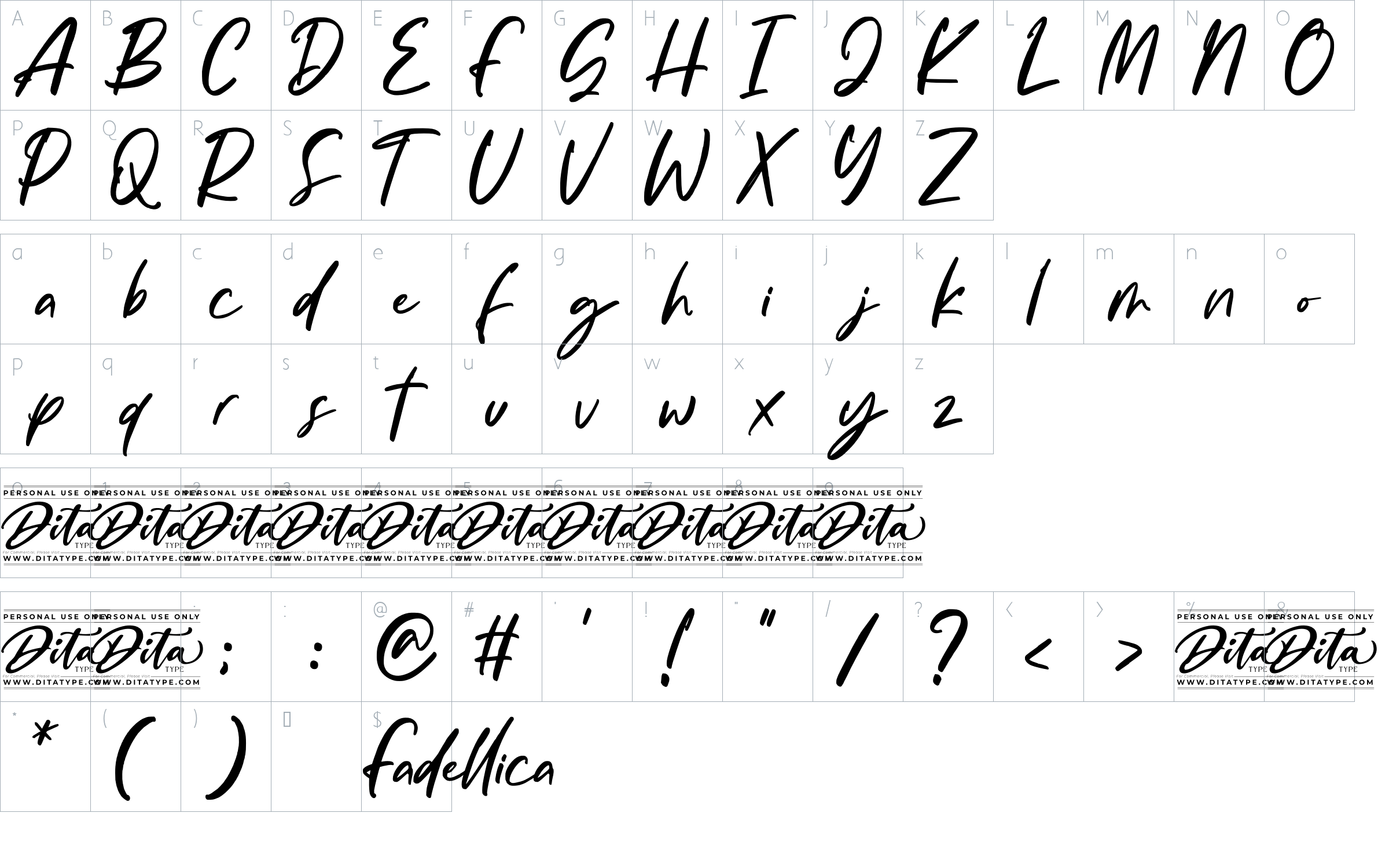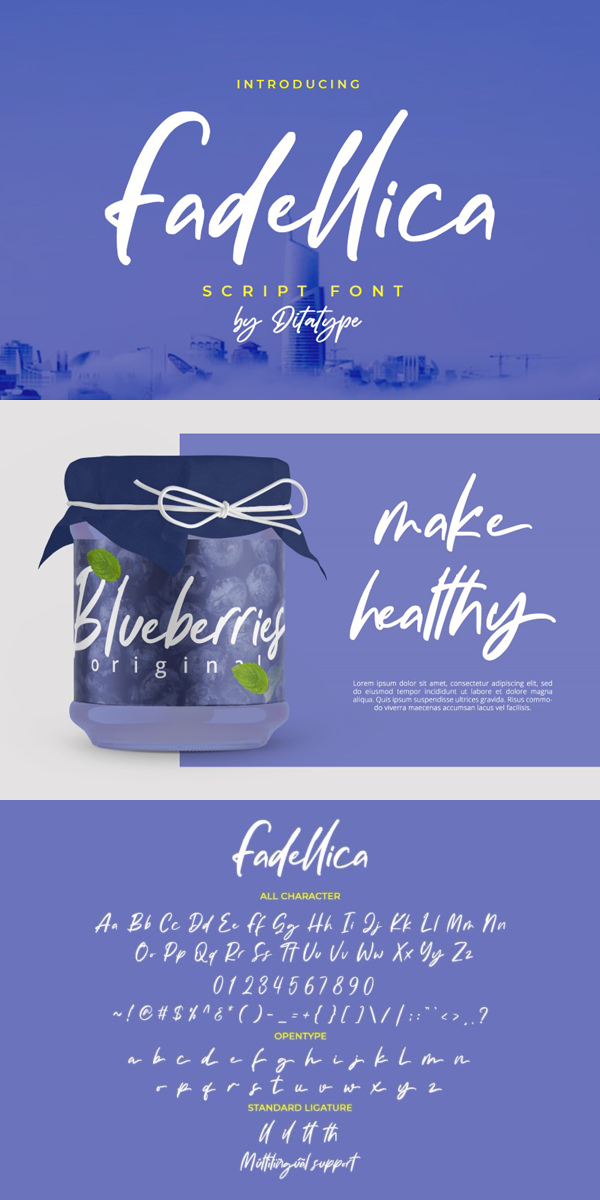
Fadellica Font
About Fadellica
Fadellica is a handwritten font. Made for any professional project branding that need a modern and attractive typeface. It is the best for logos, branding and quotes. Every letter has a unique and beautiful touch.